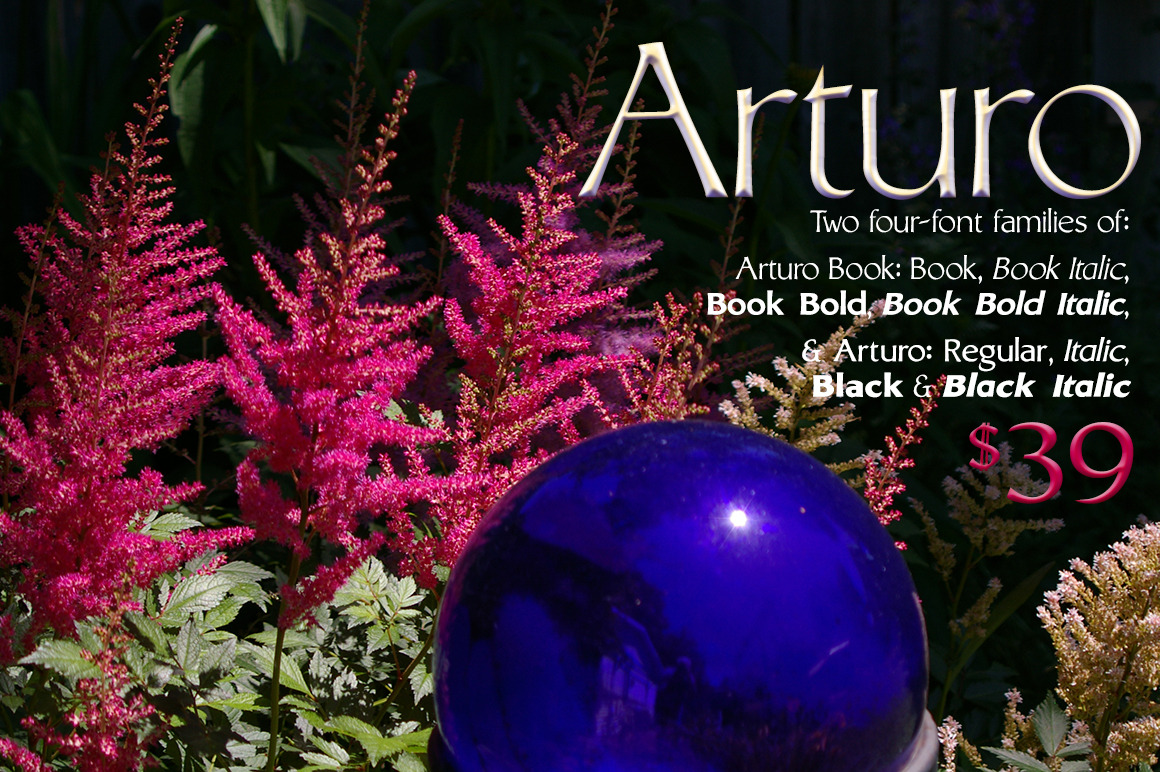
Arturo Font Families: 8-fonts
These font families are amazingly versatile, elegant, striking, beautiful, & seemingly classical though very modern. This is a humanist sans with a humanist axis designed for easy reading and a trustworthy feel.